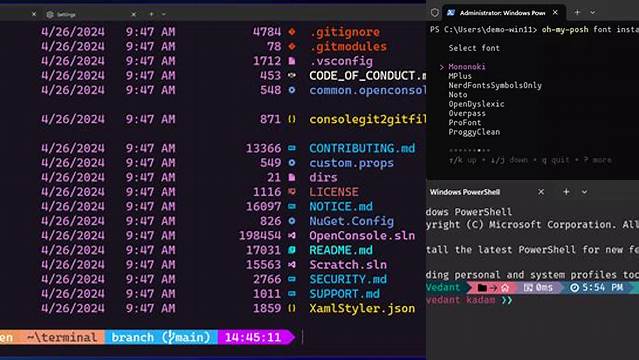
Add Nerd Fonts To Windows Terminal: A Step-by-Step Guide
Hey guys! Ever wanted to spice up your Windows Terminal with cool icons and glyphs? Nerd Fonts are the way to go! They're basically fonts that have a ton of extra symbols, icons, and glyphs added to them, making your terminal look super slick and informative. Think of things like Git status icons, file type icons, and even powerline symbols. In this article, we'll walk you through how to install and configure Nerd Fonts in your Windows Terminal, step by step. No more boring-looking terminals – let's get nerdy!
What are Nerd Fonts?
So, what exactly are Nerd Fonts? Well, Nerd Fonts are a project that patches existing fonts by adding a large set of glyphs. These glyphs come from popular icon sets like Font Awesome, Material Design Icons, Devicons, Octicons, and others. The result is a font that not only looks good for regular text but also has a ton of extra symbols that are perfect for terminal emulators. Nerd Fonts are especially useful for enhancing your command-line experience, especially if you're into customizing your shell prompts, status bars, or using terminal-based applications that display icons. Imagine seeing a cool little Git branch icon in your prompt or a specific icon for each file type in your file explorer – that's the power of Nerd Fonts.
Why Use Nerd Fonts?
Using Nerd Fonts can significantly improve your terminal experience. First off, they make your terminal visually appealing. Let's face it, a terminal full of plain text can be a bit dull. Nerd Fonts add a splash of personality with their variety of icons. Secondly, these icons can actually make your workflow more efficient. For example, if you use a Git-aware prompt, you can instantly see the status of your repository (like whether you have uncommitted changes or which branch you're on) thanks to the Git icons. Similarly, icons can help you quickly identify file types in a terminal-based file manager. Essentially, Nerd Fonts are about making your terminal both more beautiful and more functional. Plus, who doesn't love a terminal that looks like it belongs in a hacker movie?
Types of Nerd Fonts
Nerd Fonts come in various styles, so you can pick one that matches your personal taste. You have monospaced fonts, which are great for coding and terminal use because all characters have the same width, ensuring alignment. Then there are proportional fonts, which look more like regular text fonts and can be used if you prefer a more traditional look. You'll also find different font families patched with Nerd Font glyphs, such as Fira Code, Hack, and Source Code Pro, among others. Each of these font families has its own distinct look and feel, so you can try out a few to see which one you like best. The Nerd Fonts website has a handy font preview tool that lets you see what each font looks like before you download it. It’s like trying on clothes, but for your terminal!
Alternative Installation Methods
If you're a fan of automation or command-line tools, there are also alternative methods for installing Nerd Fonts. For example, you can use PowerShell to install the fonts. Here’s a quick rundown:
Using PowerShell: Open PowerShell as an administrator. Then, navigate to the directory where you extracted the font files using the
cdcommand. Use theAdd-Typecmdlet to load theSystem.Drawing.Textassembly, and then use thePrivateFontCollectionclass to install the fonts. Here's a basic example:Add-Type -AssemblyName System.Drawing $FontPath = "C:\Path\To\Your\NerdFont.ttf" # Replace with your font file path $FontCollection = New-Object System.Drawing.Text.PrivateFontCollection $FontCollection.AddFontFile($FontPath) | Out-NullThis method is a bit more technical, but it can be handy if you're setting up multiple systems or want to script the installation process.
Configuring Windows Terminal to Use Nerd Fonts
Alright, you've got your Nerd Fonts installed – awesome! Now, let's get them working in your Windows Terminal. This involves tweaking a few settings in the Terminal's configuration file, but don't worry, it's not rocket science. We'll guide you through each step.
Ctrl + ,(Control and comma) on your keyboard. This will also open thesettings.jsonfile.